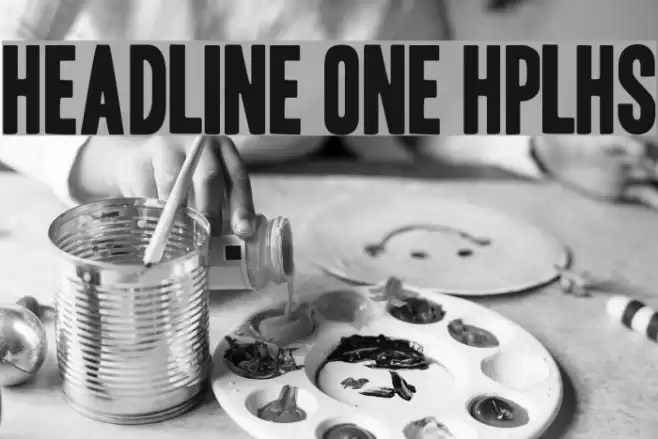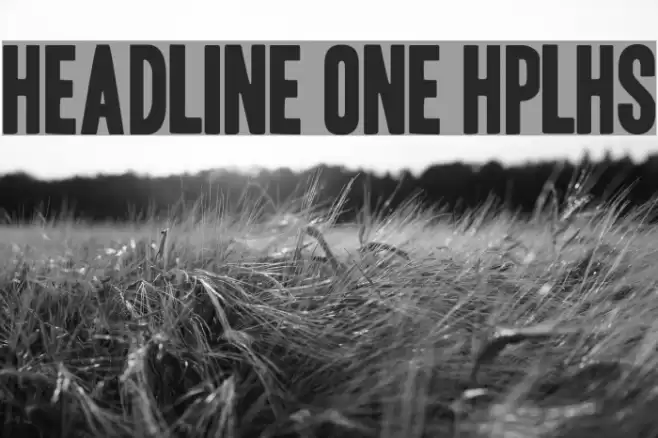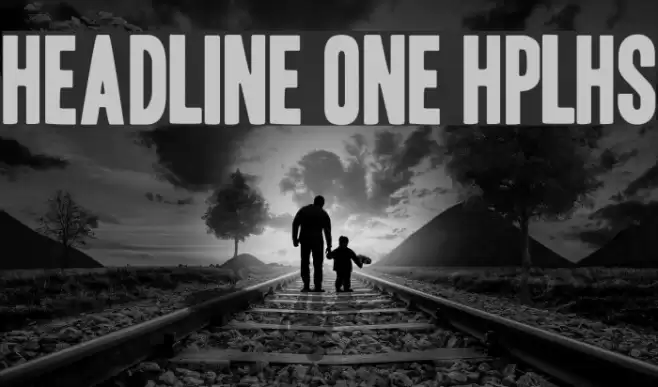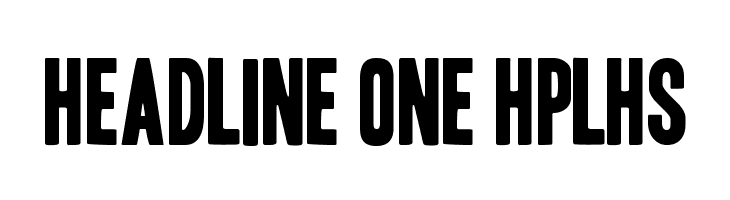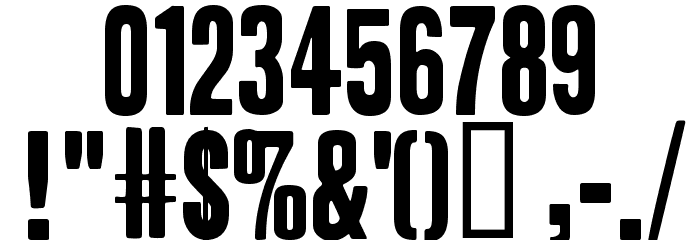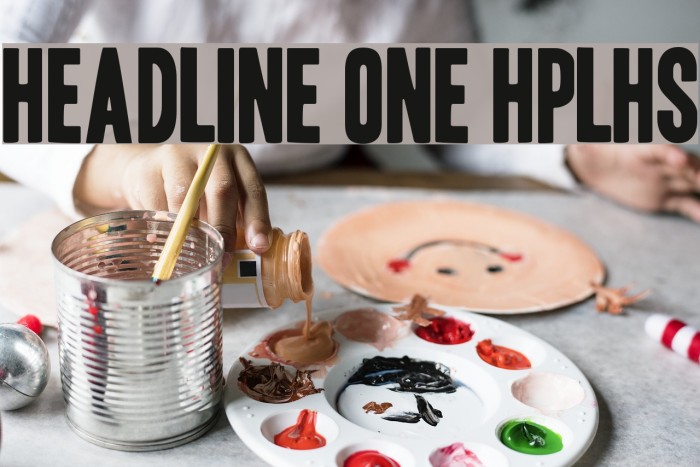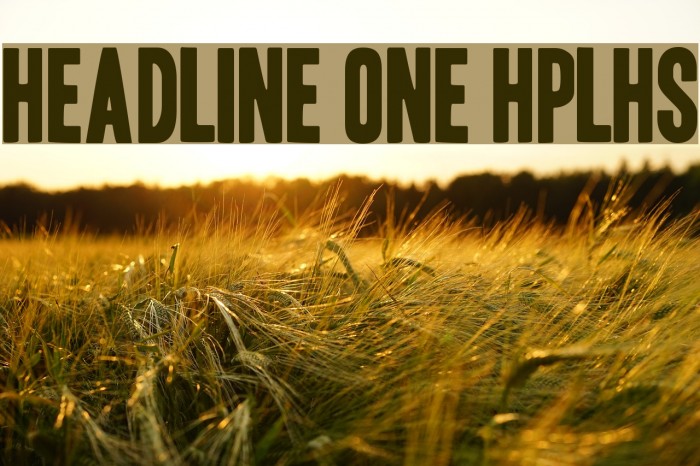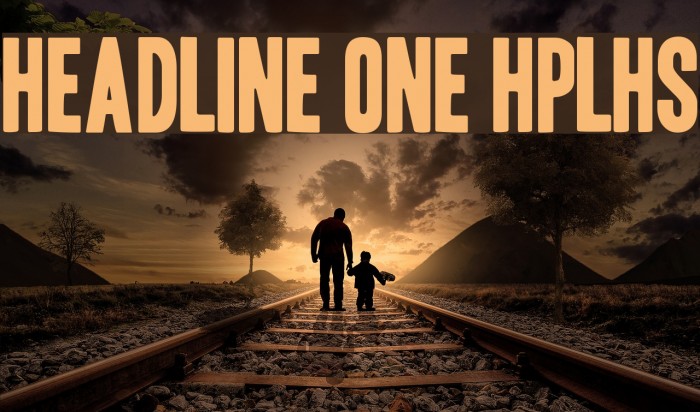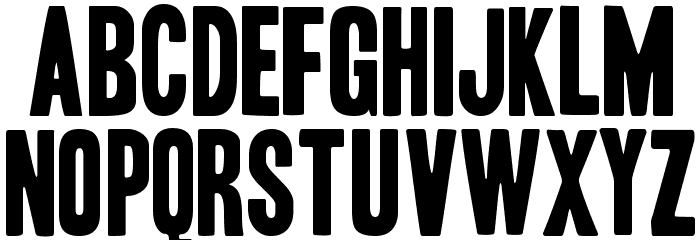
Headline One HPLHS Font
Headline One HPLHS Description
This font is a bold, impactful typeface characterized by its thick, uniform strokes and strong presence. The uppercase letters are tall and commanding, while the lowercase letters maintain the same boldness, ensuring readability and emphasis. The numbers are equally robust, matching the overall weight of the alphabet. Special characters are designed with the same attention to boldness and clarity, making them stand out effectively. This font is ideal for making a statement, with its high visibility and strong lines. It is perfect for headlines, posters, and any design that requires a bold, assertive typeface.
A bold, impactful typeface with thick, uniform strokes ideal for headlines from Sans Serif fonts.
- Proposed Projects: Ideal for posters, headlines, advertisements, and any design needing a strong visual impact.
- Use Case: Headlines, Posters, Advertisements